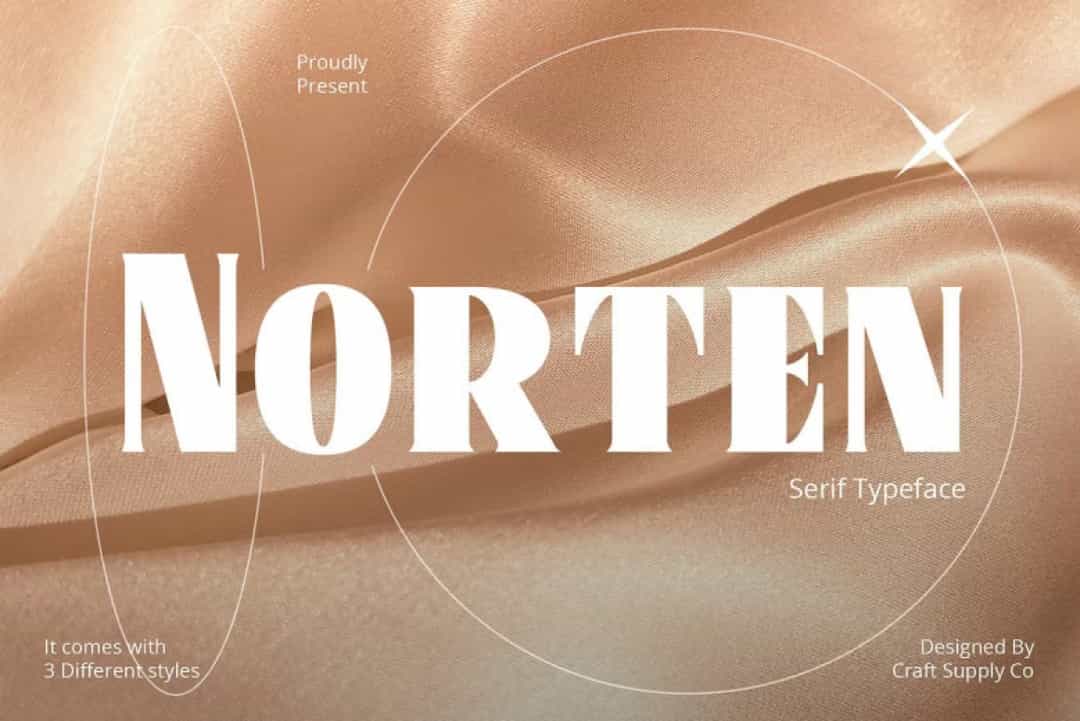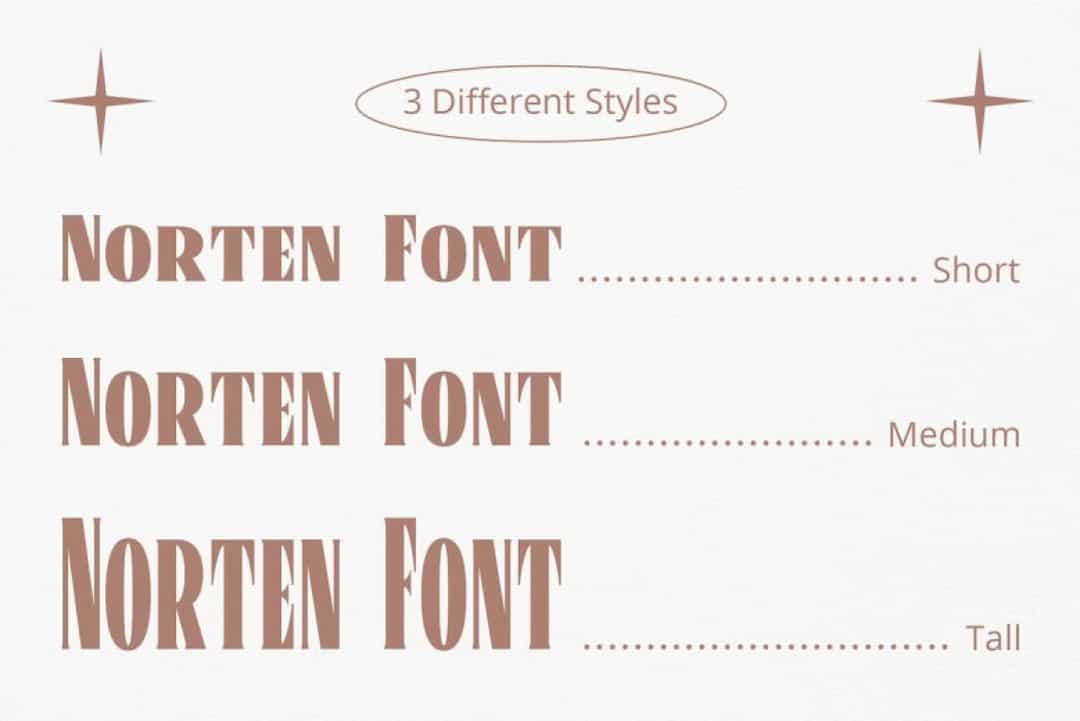
Norten Serif Typeface is an elegant classic serif typeface that stands out for its minimalist, all-caps appearance and sense of versatility, making it a must-have to meet design needs across print and web media. Therefore, Norten seamlessly adapts itself to different design challenges to become an essential addition to your toolbox.